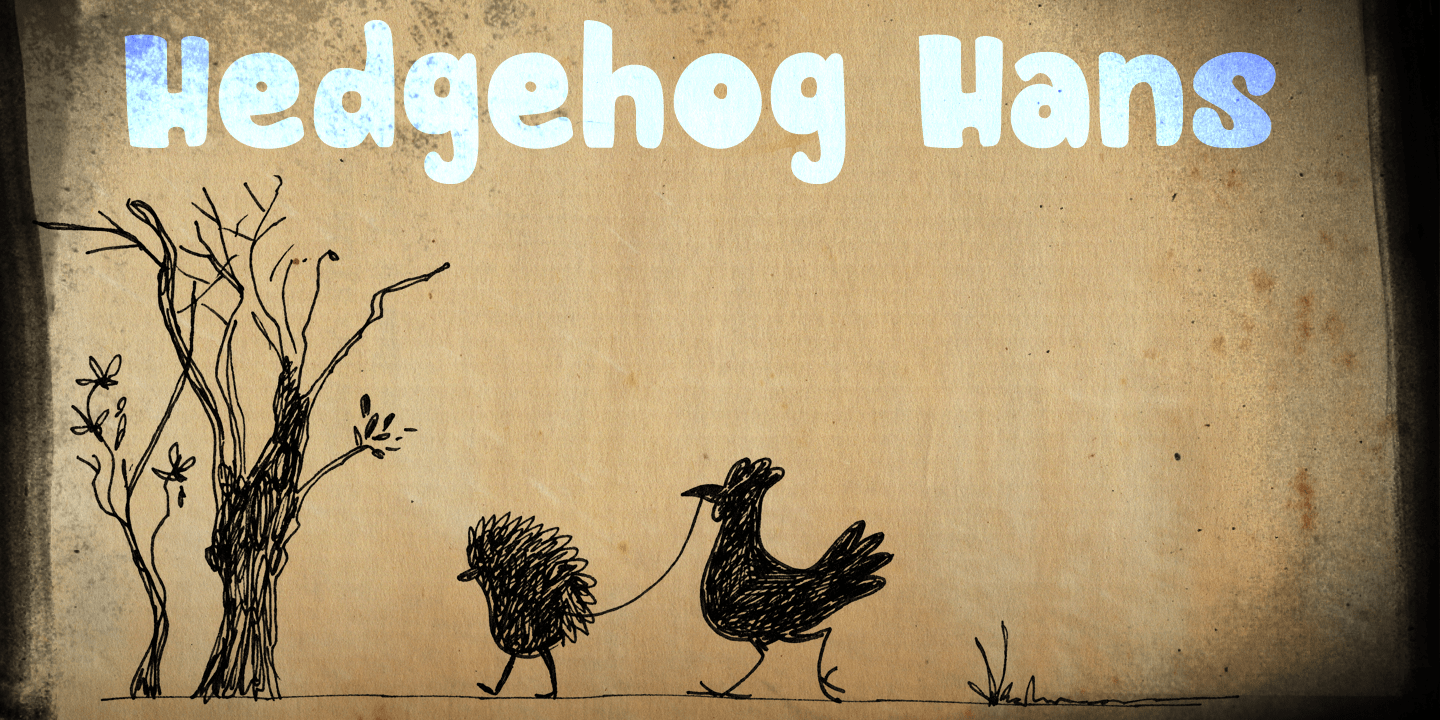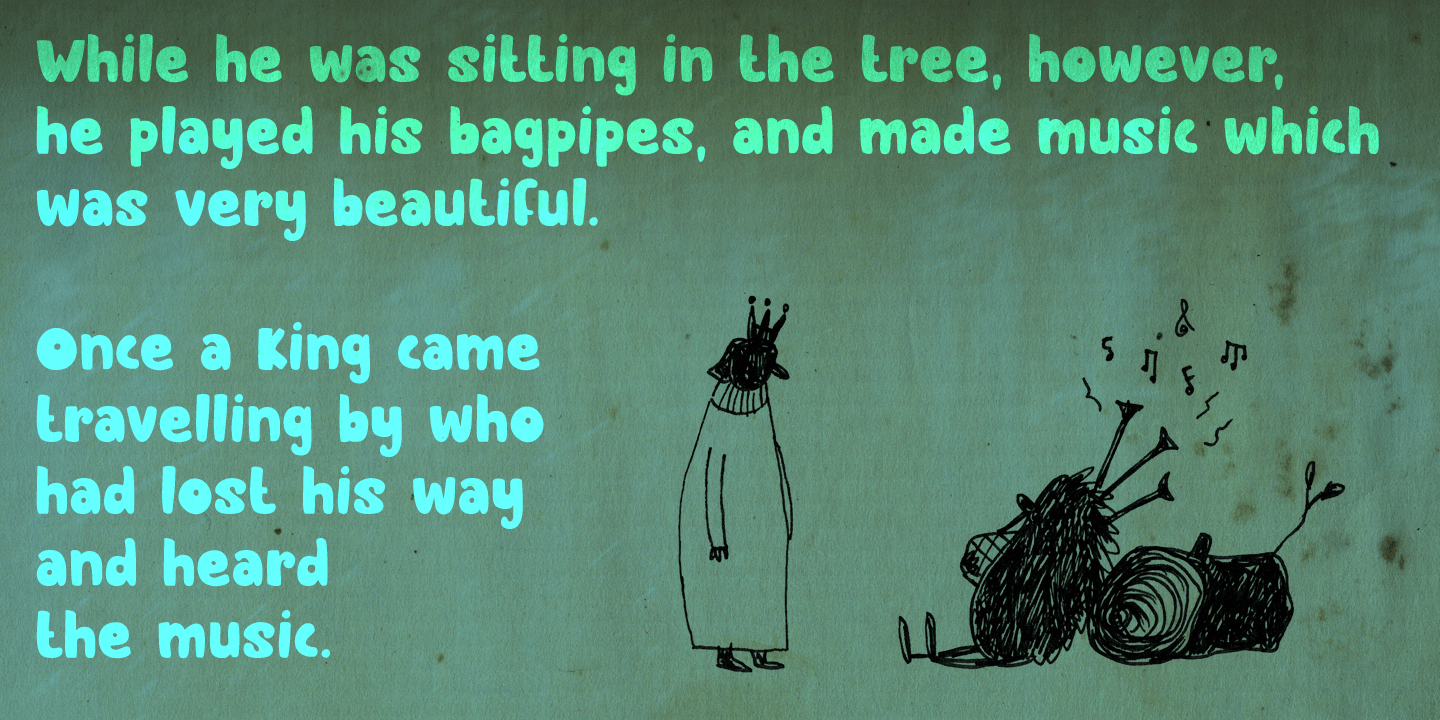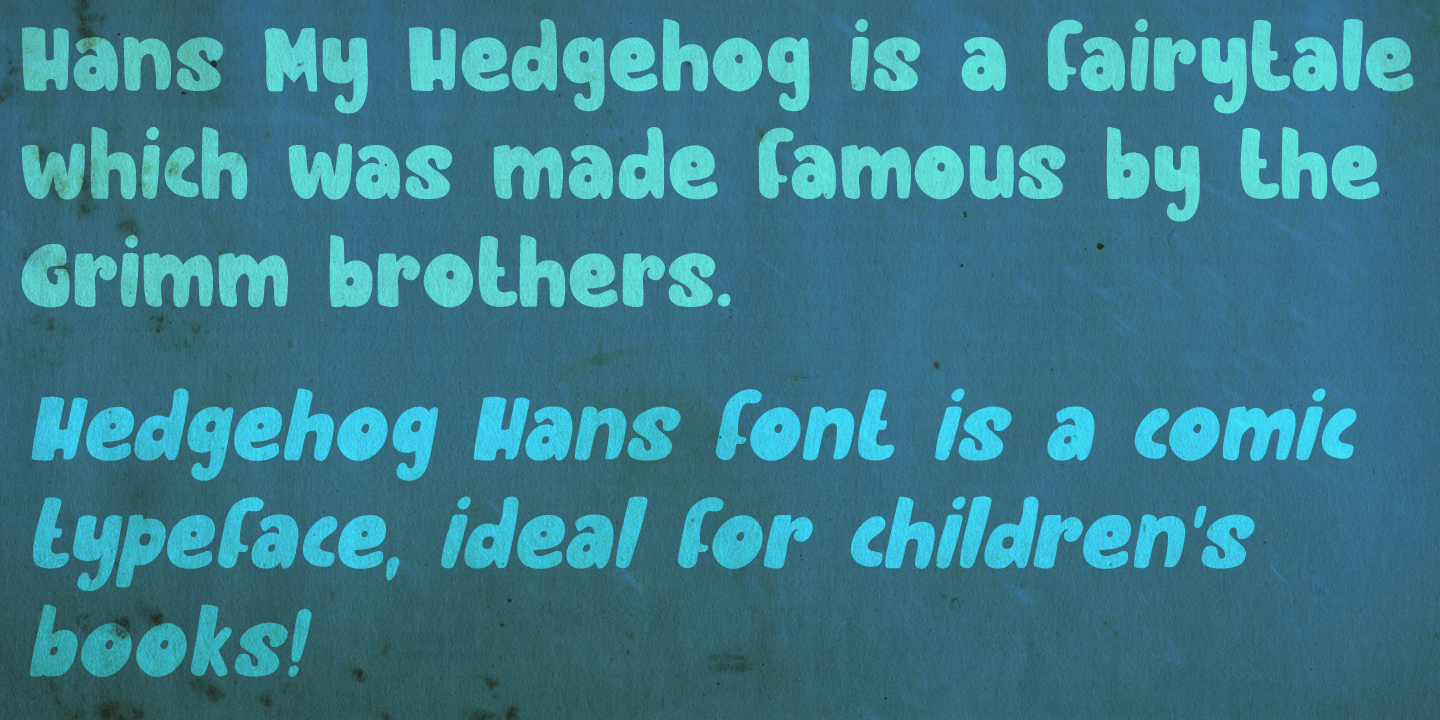
Hedgehog Hans
Font Family by Hanoded
Hans My Hedgehog is an old fairytale which was made famous by the Grimm Brothers, when they published it in the early 19th century. Hedgehog Hans font is a fat, rounded and rather cute typeface, which is ideal for children's books and posters. It is highly legible, and comes with extensive language support.